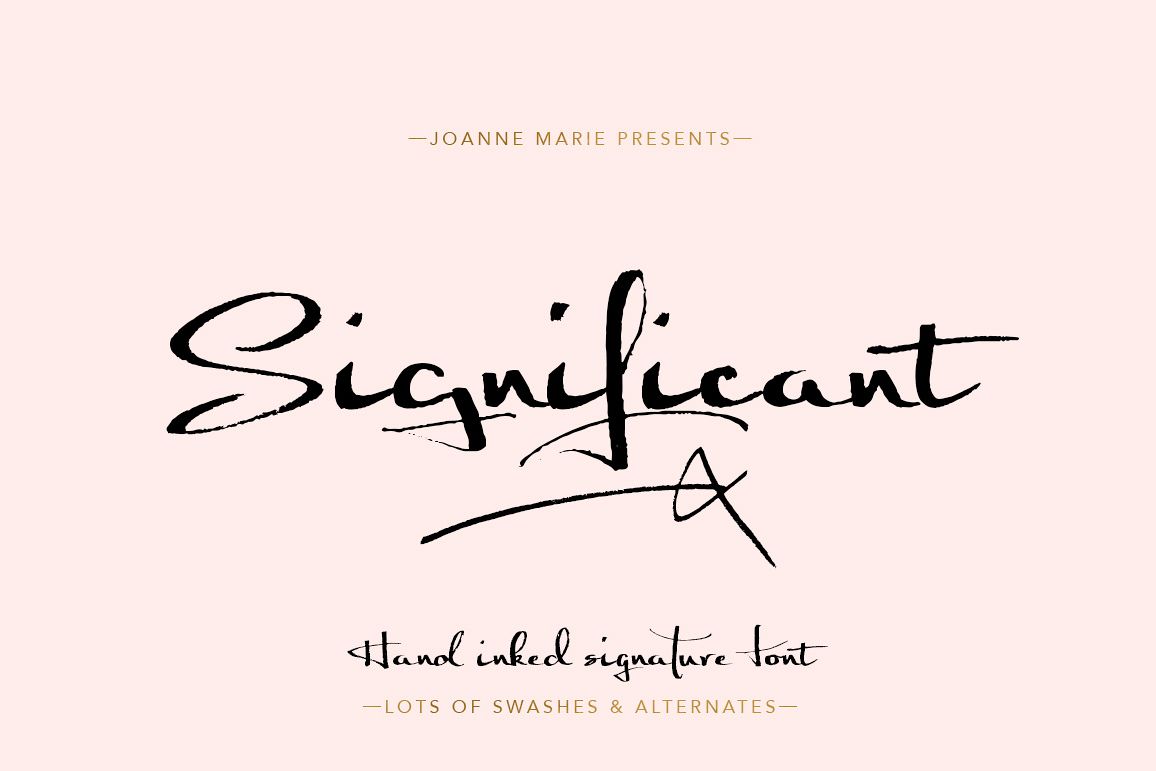
Significant Signature Font
Here's another signature font for all you hand lettering lovers out there :-)
Significant is a hand inked, versatile font with lots of alternates and underline swashes. It oozes elegance and is so legible that it can be used for large amounts of text at a smallish size!
Not only does it work spectacularly for signatures and logos - it's also brilliant for any project which calls for a relaxed, casual and handmade feel.
Significant font includes multilingual glyphs